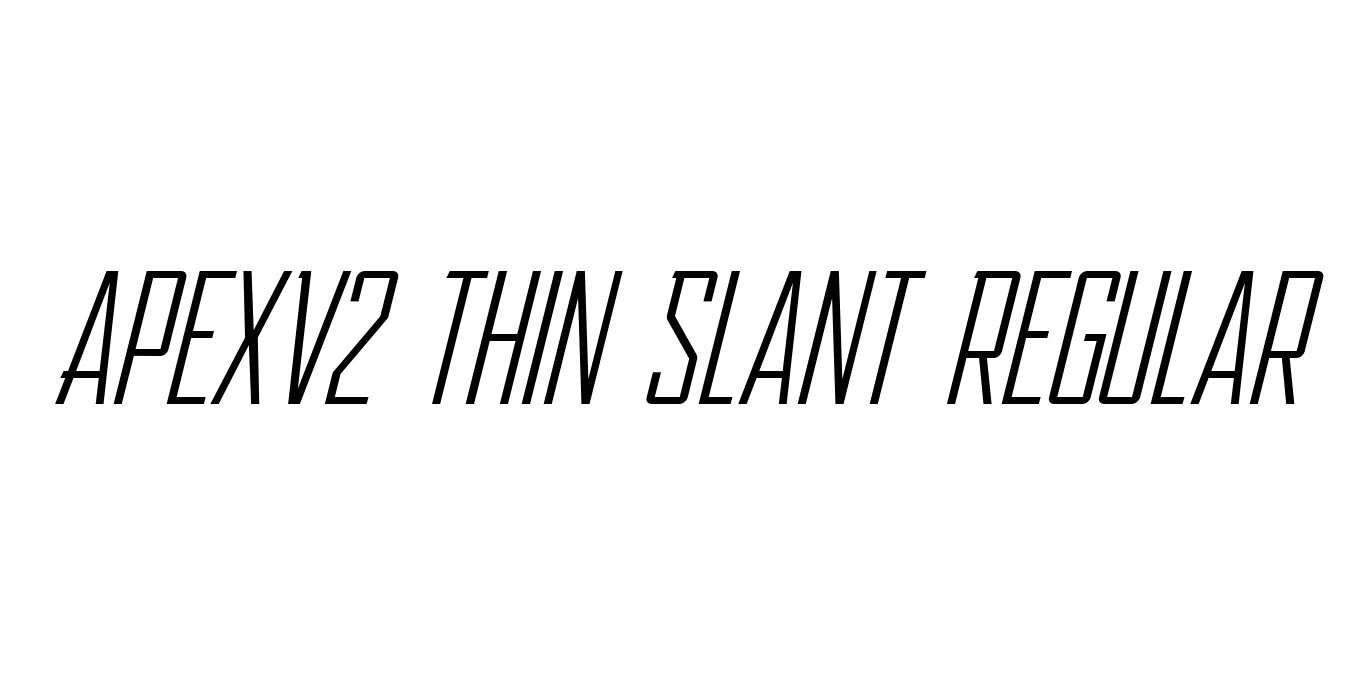
ApexV2 Thin Slant Regular
Designed by Apex Design Team
ApexV2 Thin Slant Regular is a cutting-edge geometric sans-serif typeface specifically engineered for modern digital and print aesthetics. This font variant prioritizes a lean, skeletal structure combined with a sharp italicized slant, evoking a sense of speed, precision, and futuristic elegance. It serves as a more refined evolution of the original Apex series, focusing on extreme clarity within a minimalist footprint.
The typeface is particularly effective in high-resolution environments where its slender profile and geometric precision can truly shine. Because of its thin stroke weight and dynamic lean, it works exceptionally well for high-end fashion branding, architectural project titles, and sophisticated editorial layouts. It maintains a high level of legibility while providing a distinct, professional character that stands out from more traditional sans-serif offerings.
ApexV2 Thin Slant Regular Best Uses
Ideal for tech startups and luxury brands requiring a clean, forward-thinking logo.
Perfect for oversized headers in high-fashion magazines and design catalogs.
Excellent for hero sections and decorative accents in minimalist web design.
Well-suited for architectural wayfinding and modern gallery display titles.